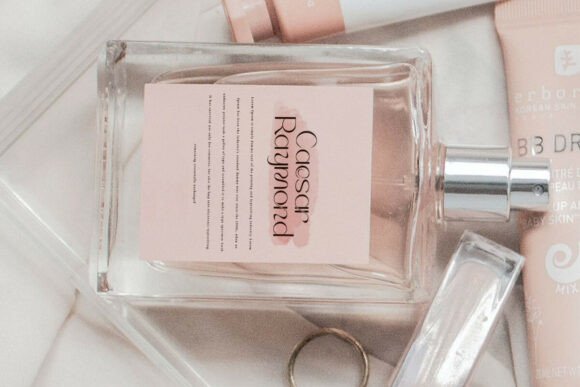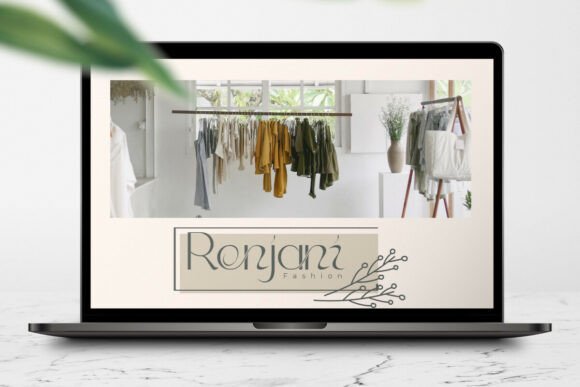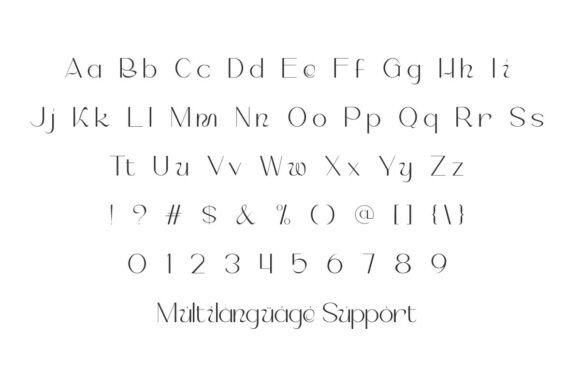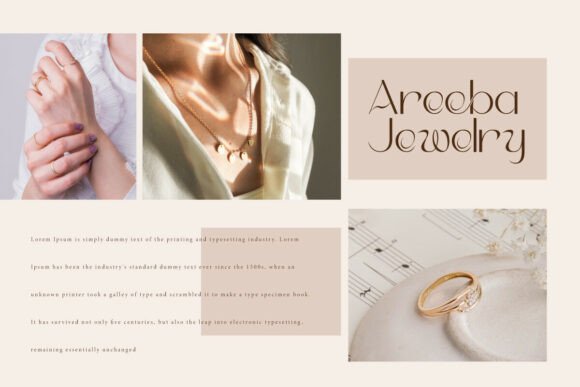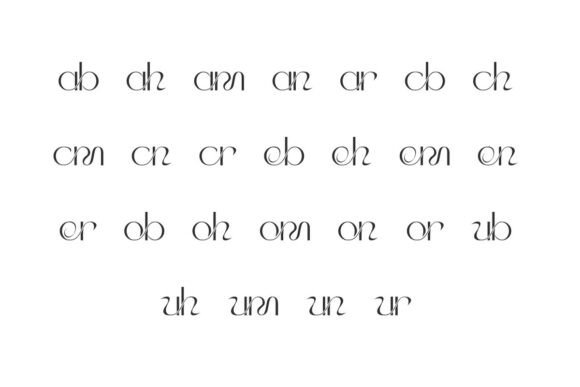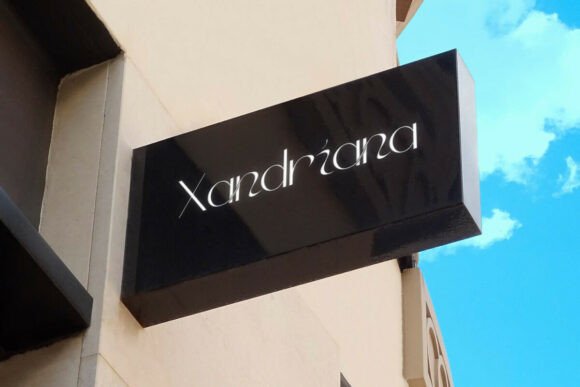
Introducing Caesar Raymond Font: Elevate Your Designs with Elegance and Sophistication
In the world of typography, a well-crafted font can make all the difference in elevating your design from ordinary to extraordinary. If you’re a designer, crafter, or simply someone who appreciates the art of beautiful lettering, you’re in for a treat. Say hello to Caesar Raymond Font, a uniquely stylish and sophisticated display font that’s sure to captivate your audience.
A Font that Exudes Elegance and Charm
Caesar Raymond Font is a masterpiece of typographic design, boasting delicate and unique curves that give each character an epic quality. This stunning display font is perfect for those who want to add a touch of sophistication and glamour to their designs. Whether you’re working on a blog, magazine cover, heading, invitation, label, logo, quote, signage, sticker, or template design, Caesar Raymond Font is the perfect choice.
What Sets Caesar Raymond Font Apart
So, what makes Caesar Raymond Font stand out from the rest? For starters, it features several charming, decorative, and special ligatures to choose from. These ligatures add an extra layer of elegance and refinement to your text, making it perfect for high-end designs. Additionally, the font’s unique curves and lines create a sense of fluidity and movement, drawing the viewer’s eye through the text.
With Caesar Raymond Font, the design possibilities are endless. Here are just a few ideas to get you started:
- Blog headers: Add a touch of sophistication to your blog with Caesar Raymond Font. Use it as a header font to draw attention to your title and set the tone for your content.
- Magazine covers: Create a stunning magazine cover with Caesar Raymond Font as the main attraction. Its elegant curves and lines will make your cover stand out on newsstands.
- Invitations: Make your invitations unforgettable with Caesar Raymond Font. Its charming ligatures and decorative elements will add a touch of luxury to your event.
- Logos: Use Caesar Raymond Font to create a memorable logo for your brand. Its unique curves and lines will help you stand out in a crowded market.
- Signage: Elevate your signage with Caesar Raymond Font. Its elegant design makes it perfect for storefronts, billboards, and more.
Why Designers and Crafters Love Caesar Raymond Font
Designers and crafters love Caesar Raymond Font for its versatility and elegance. Here are just a few reasons why:
- Easy to read: Despite its ornate design, Caesar Raymond Font is surprisingly easy to read. This makes it perfect for body text, headings, and titles.
- Highly versatile: Caesar Raymond Font can be used for a wide range of design projects, from elegant wedding invitations to bold signage.
- Unique and eye-catching: Caesar Raymond Font is a true showstopper. Its unique curves and lines will grab attention and leave a lasting impression.
Get Creative with Caesar Raymond Font
Ready to take your designs to the next level with Caesar Raymond Font? Here are a few tips to get you started:
- Experiment with ligatures: Caesar Raymond Font features several charming ligatures to choose from. Experiment with different combinations to find the one that works best for your design.
- Play with font sizes: Caesar Raymond Font looks stunning in large font sizes, but it’s also surprisingly effective in smaller sizes. Experiment with different font sizes to find the perfect balance for your design.
- Pair it with other fonts: Caesar Raymond Font pairs beautifully with other fonts. Try pairing it with a clean sans-serif font for a striking contrast.
In conclusion, Caesar Raymond Font is a uniquely stylish and sophisticated display font that’s perfect for designers and crafters who want to elevate their designs. With its delicate curves, charming ligatures, and endless design possibilities, this font is sure to become a favorite in your collection. So why wait? Get creative with Caesar Raymond Font today and take your designs to new heights!